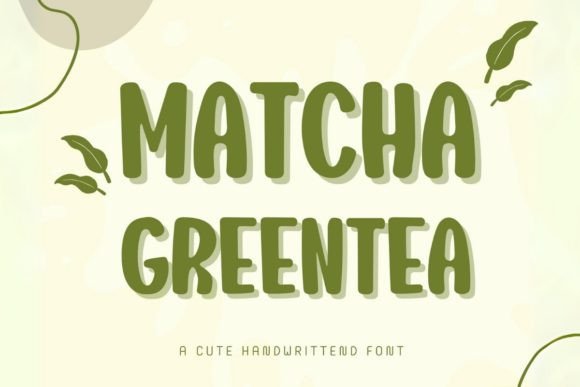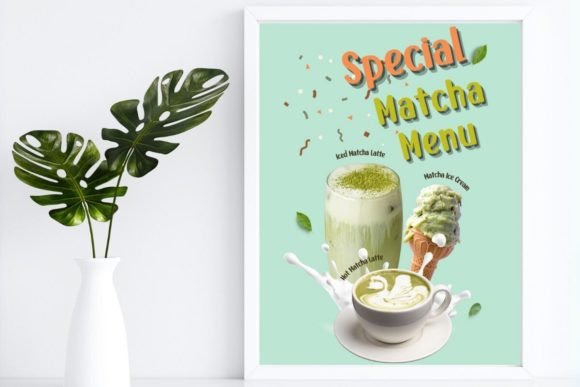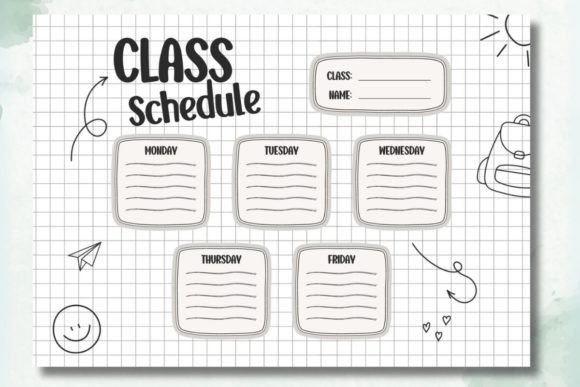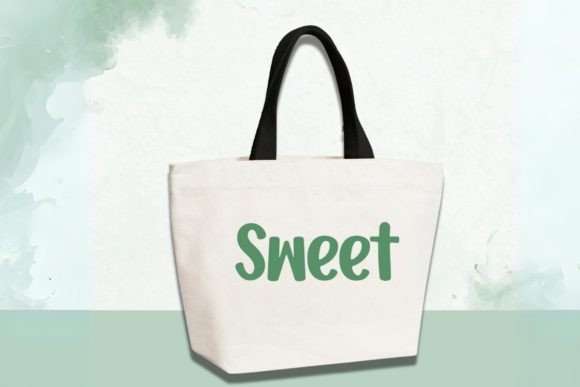
Matcha Greentea Font: A Cute Handwritten Font for Social Media Design
About the Matcha Greentea Font
Add a touch of class to your work with the Matcha Greentea Font, a truly exceptional typeface. Matcha Greentea Font is a fun and casual handwritten font. IIts casual charm and fun typewriter handwritten. Its natural and unique style makes it incredibly fitting to a large pool of designs. The only limit is your imagination! Perfect for greeting cards,social media posts,product packaging and more
Matcha Greentea excels in projects requiring a friendly, approachable aesthetic. Ideal applications include short-form content like social media graphics, branding elements for cafes or artisan products, and playful packaging designs. It works particularly well for headlines, short quotes, and logotypes. However, its handwritten nature makes it less suitable for body text or UI elements where readability over long stretches is crucial.
Consider pairing Matcha Greentea with a clean sans-serif like Open Sans for a balanced contrast, or a geometric sans-serif like Montserrat for a modern feel. For a more vintage vibe, a serif typeface such as Playfair Display could create an elegant juxtaposition. Avoid pairing it with overly decorative or highly stylized fonts to maintain visual clarity.
The font’s overall personality is light-hearted and informal, conveying a sense of youthful energy and approachability. Its casual charm is perfect for brands that wish to project a friendly, handmade quality.
Matcha Greentea Font Usage Examples
Matcha Greentea Font Example